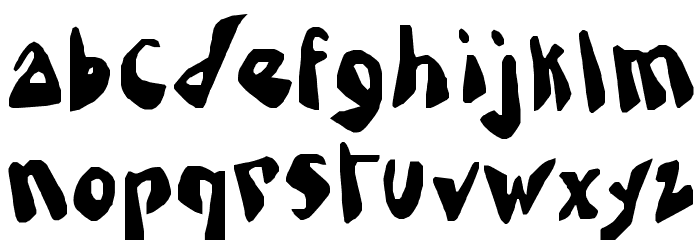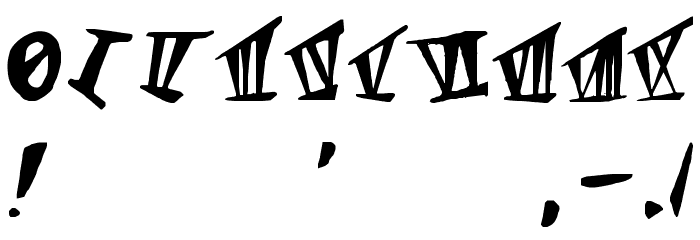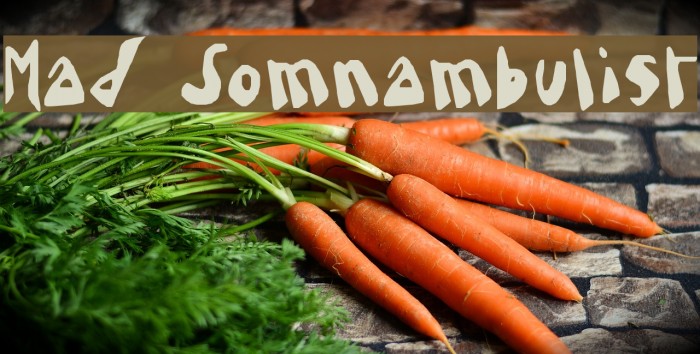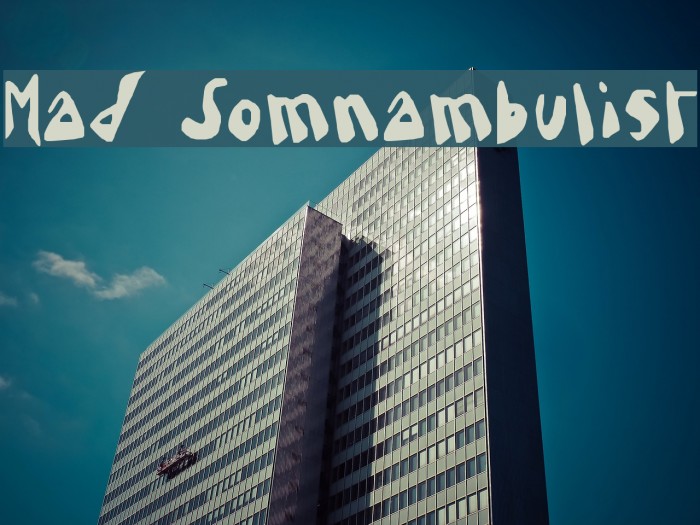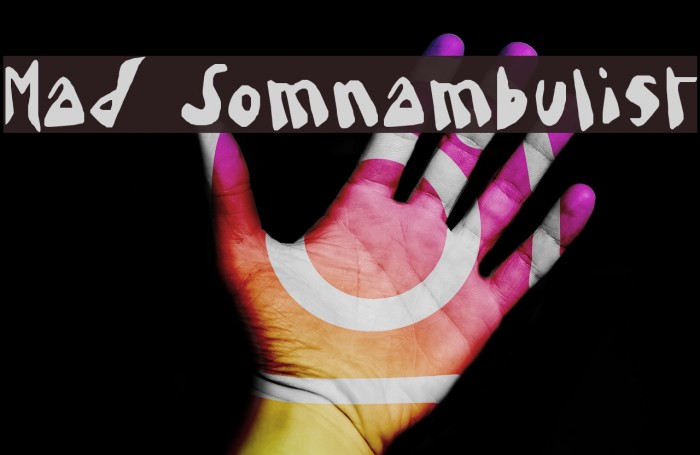
Mad Somnambulist Font
This font features a highly stylized and irregular design, reminiscent of hand-drawn or graffiti-like lettering. The characters are bold and uneven, with a playful and chaotic appearance. The uppercase and lowercase letters have a distinct, jagged quality, giving them a unique and artistic flair. The numbers and special characters follow the same aesthetic, contributing to the overall whimsical and unconventional style. This font is ideal for creative projects that require a bold and eye-catching typeface.
A bold, irregular, and artistic font with a hand-drawn, graffiti-like style.